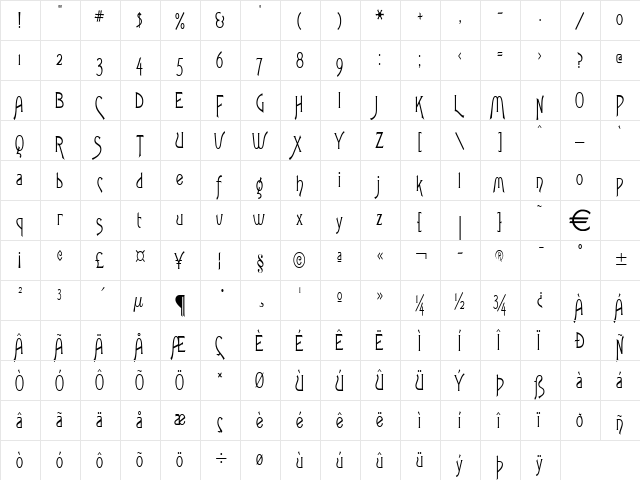
FletchThin Normal Font Preview
FletchThin Normal
Design Context for FletchThin Typeface
FletchThin is a composed and adaptable typeface that performs quietly and consistently across a wide range of design contexts. Its slender proportions lend an understated elegance to any composition.